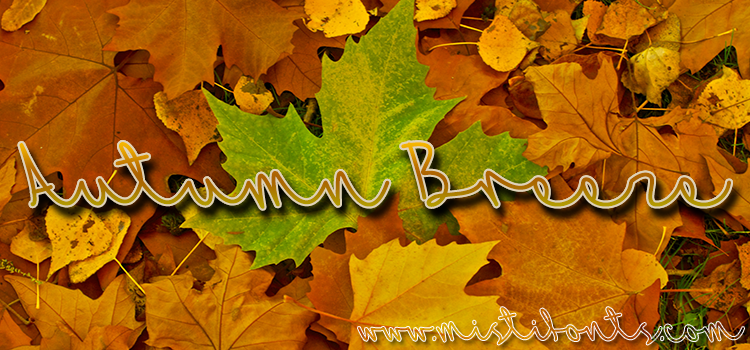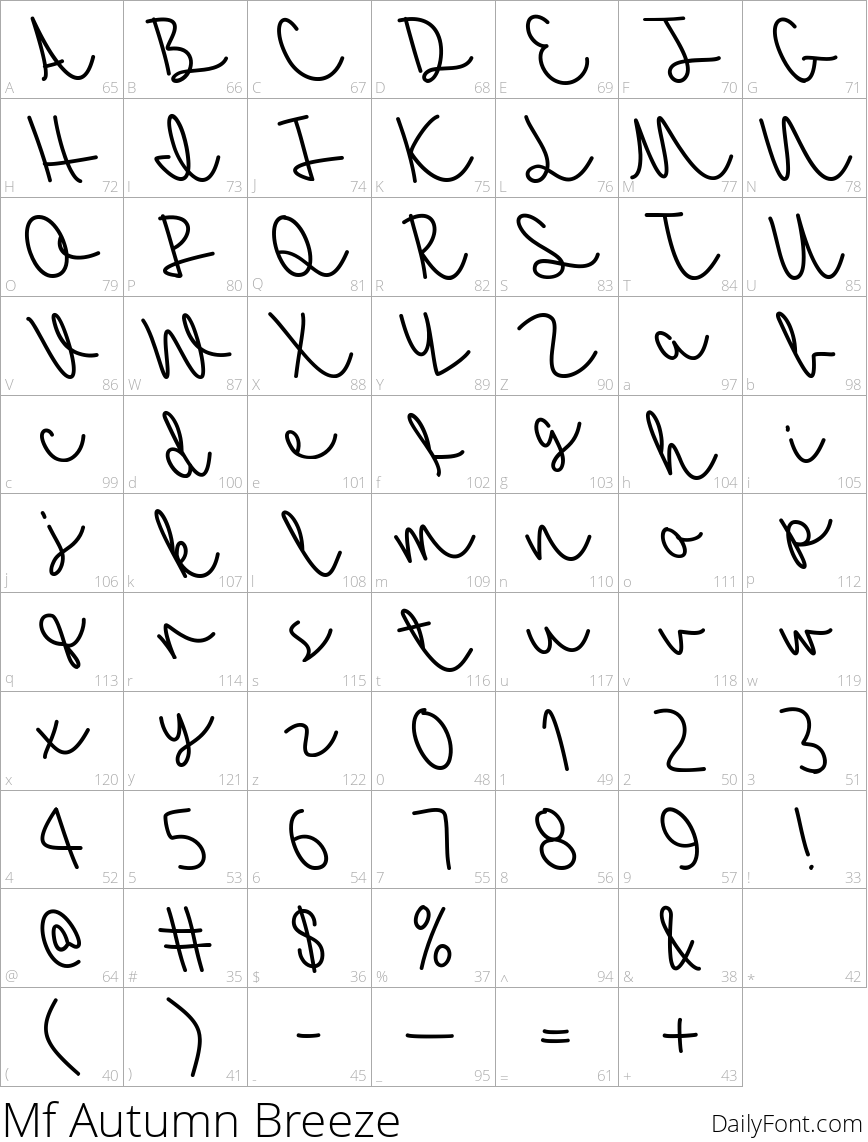
Autumn Breeze by Misti's Fonts
Autumn Breeze is a cursive font that leans a little to the left.
Misti Hammers is a font designer in Germany who focuses on script, handwritten fonts.